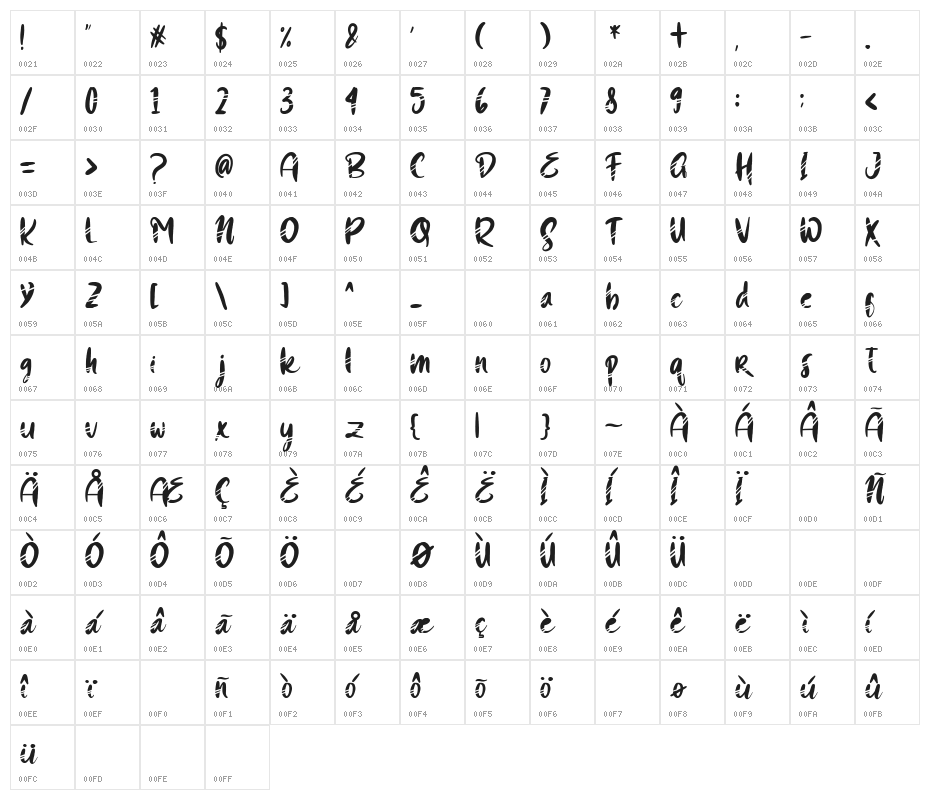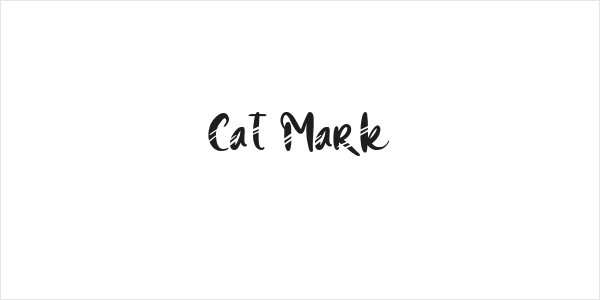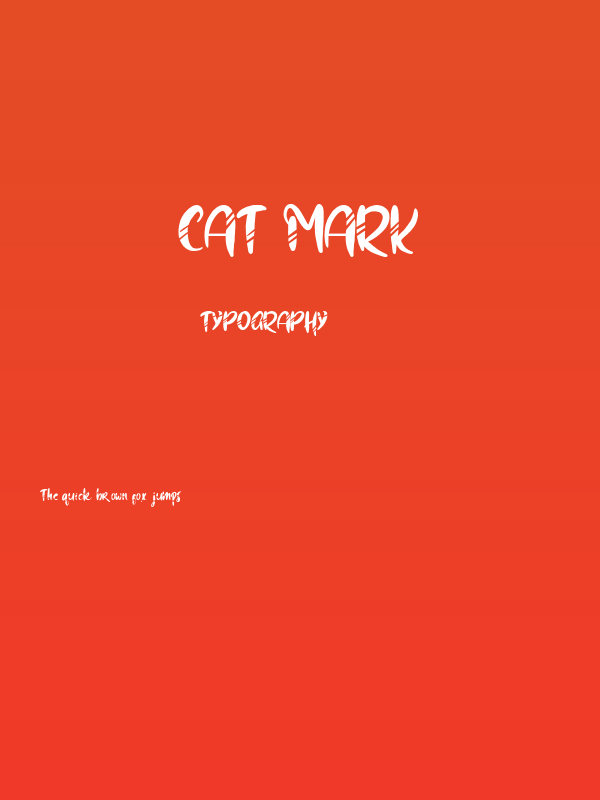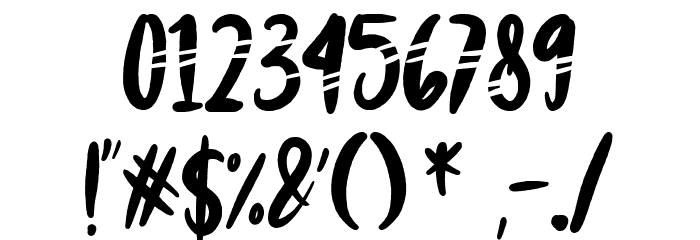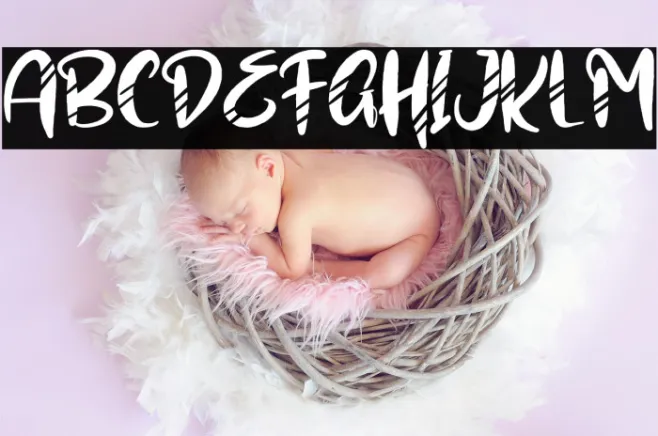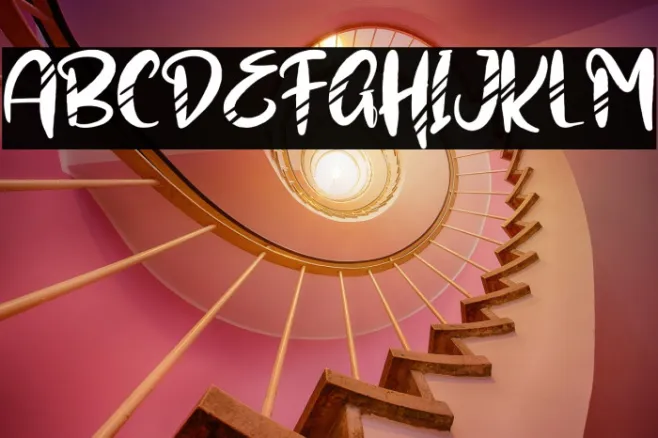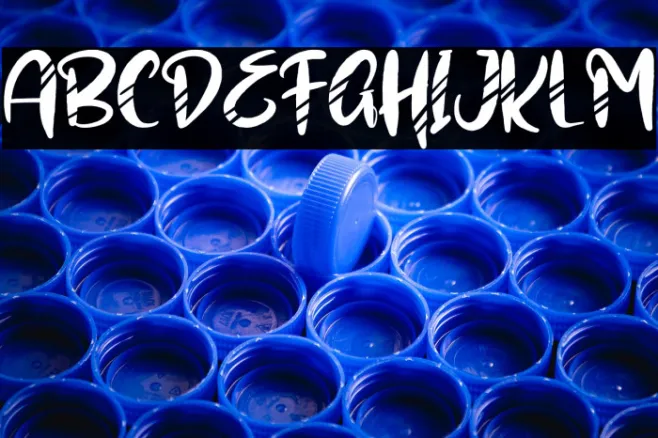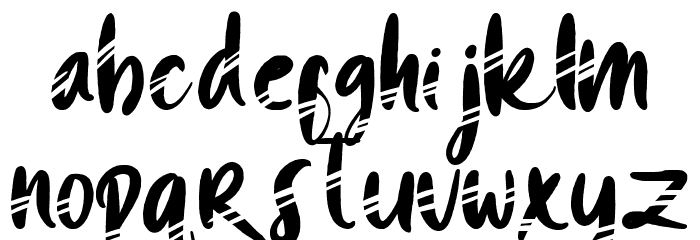
Cat Mark Font
Cat Mark Description
This font features a bold and expressive handwritten style with a distinct brush-like appearance. The characters are crafted with a dynamic flow, showcasing a playful yet sophisticated aesthetic. The strokes are thick and exhibit a high contrast, with some letters having unique swashes and flourishes that add to the overall charm. The uppercase and lowercase letters maintain a consistent style, while the numbers and special characters are equally expressive, making this font versatile for various creative projects.